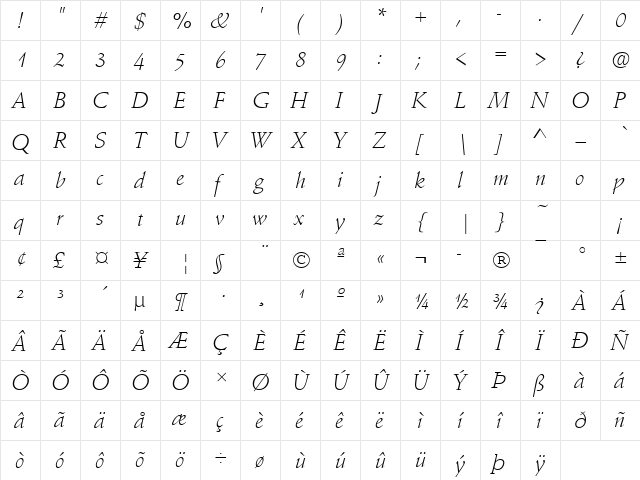
SchneidlerAmaTLig Italic Font Preview
SchneidlerAmaTLig Italic
SchneidlerAmaTLig Italic Font Details
Design Context for SchneidlerAmaTLig Typeface
SchneidlerAmaTLig takes a measured approach to typography — its balanced proportions and neutral character make it a reliable workhorse for both digital and print work. The slanted form adds forward momentum and visual energy.